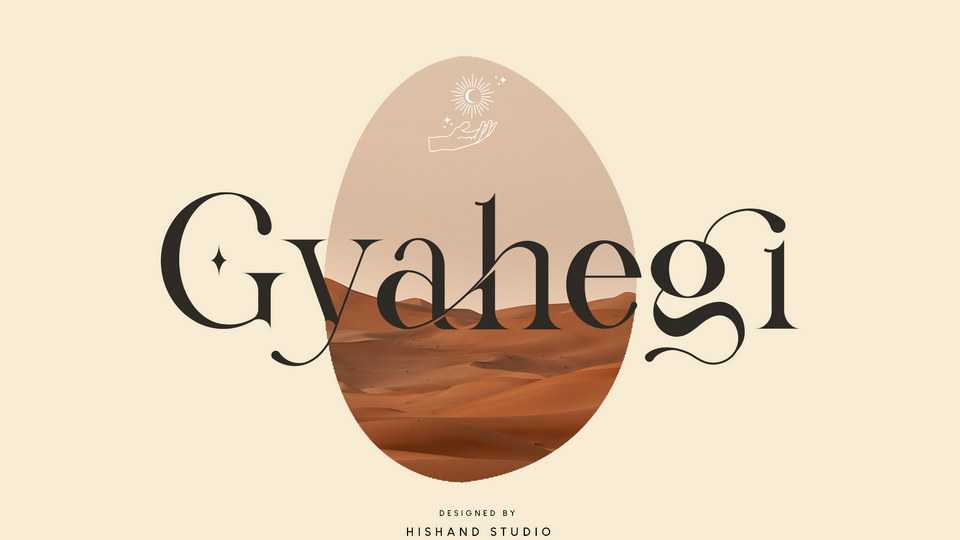
Download Gyahegi font, a modern serif typeface that looks elegant and aesthetic with its beautiful ligatures. Gyahegi is good for logo, branding, advertisement, product packaging, social media post, clothing brand, magazine headers and many more.